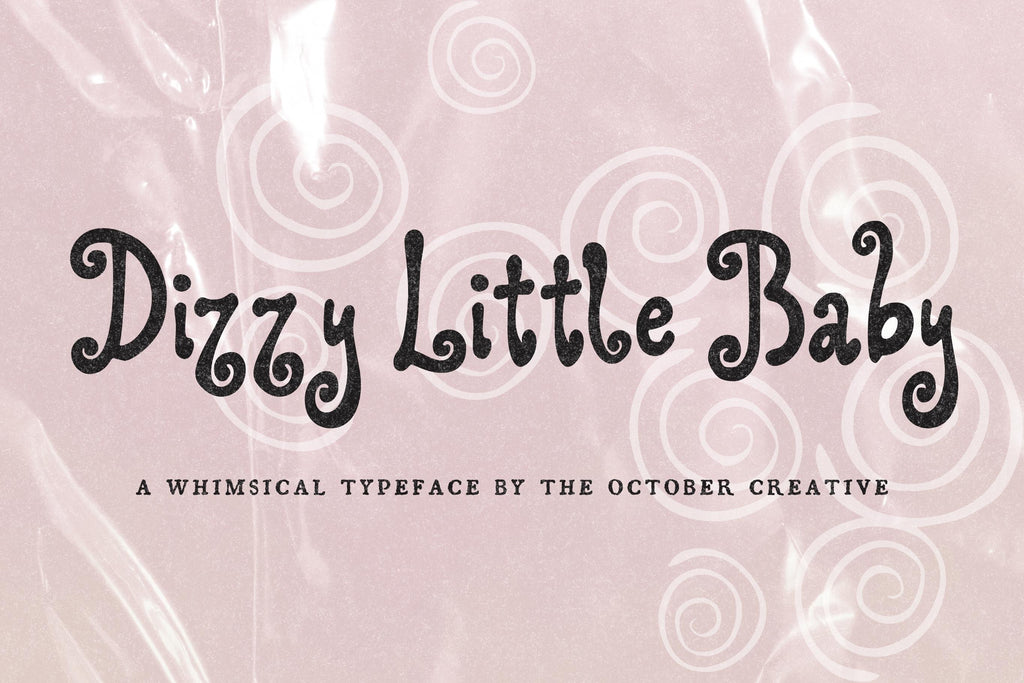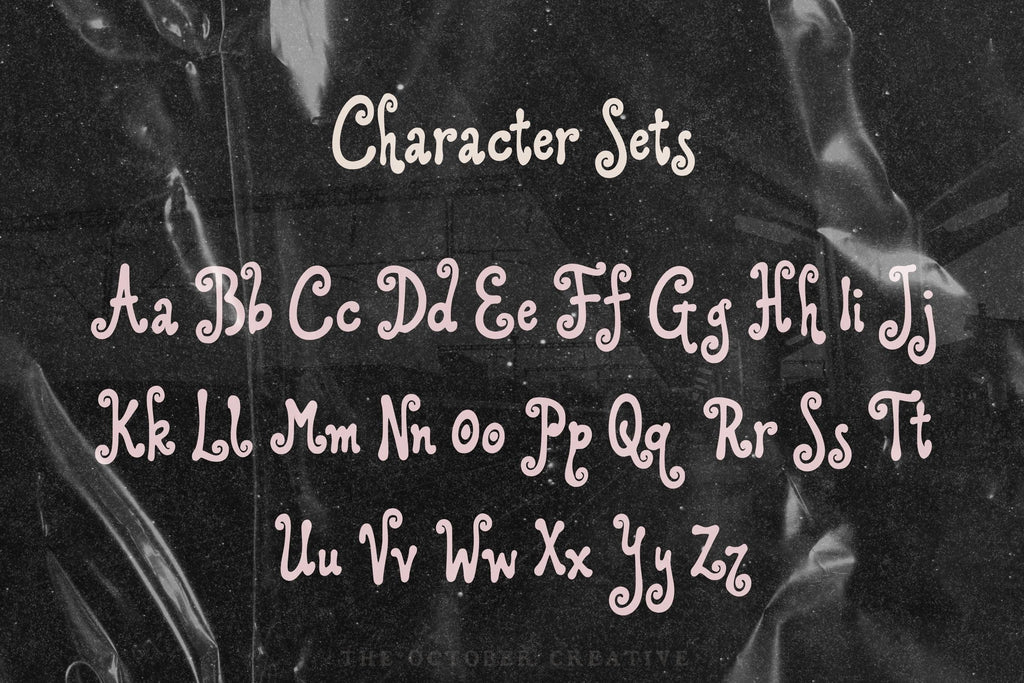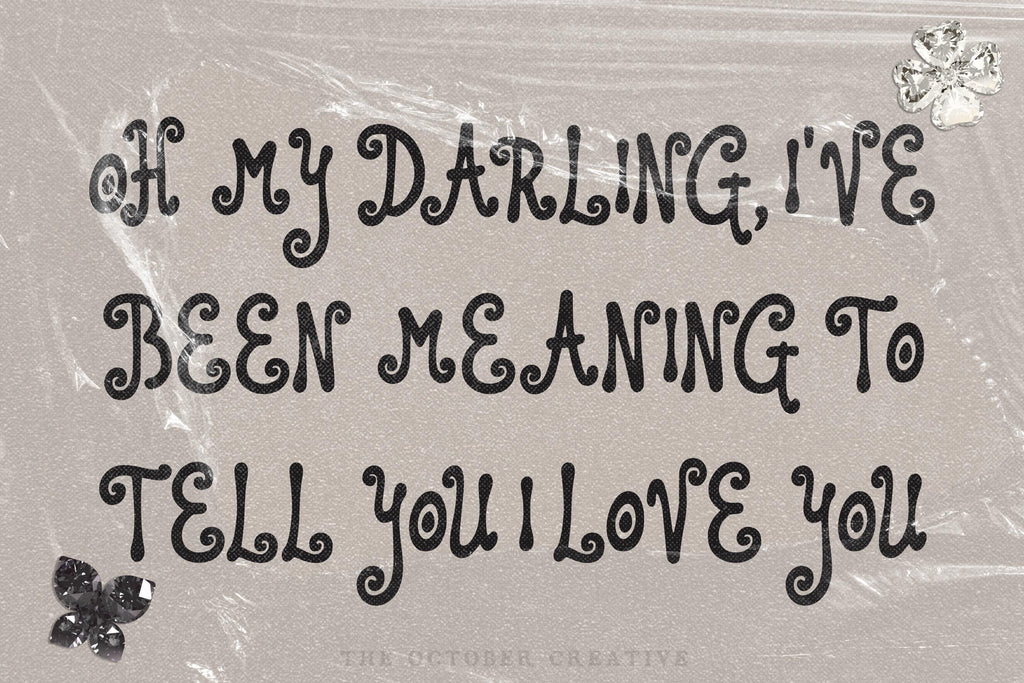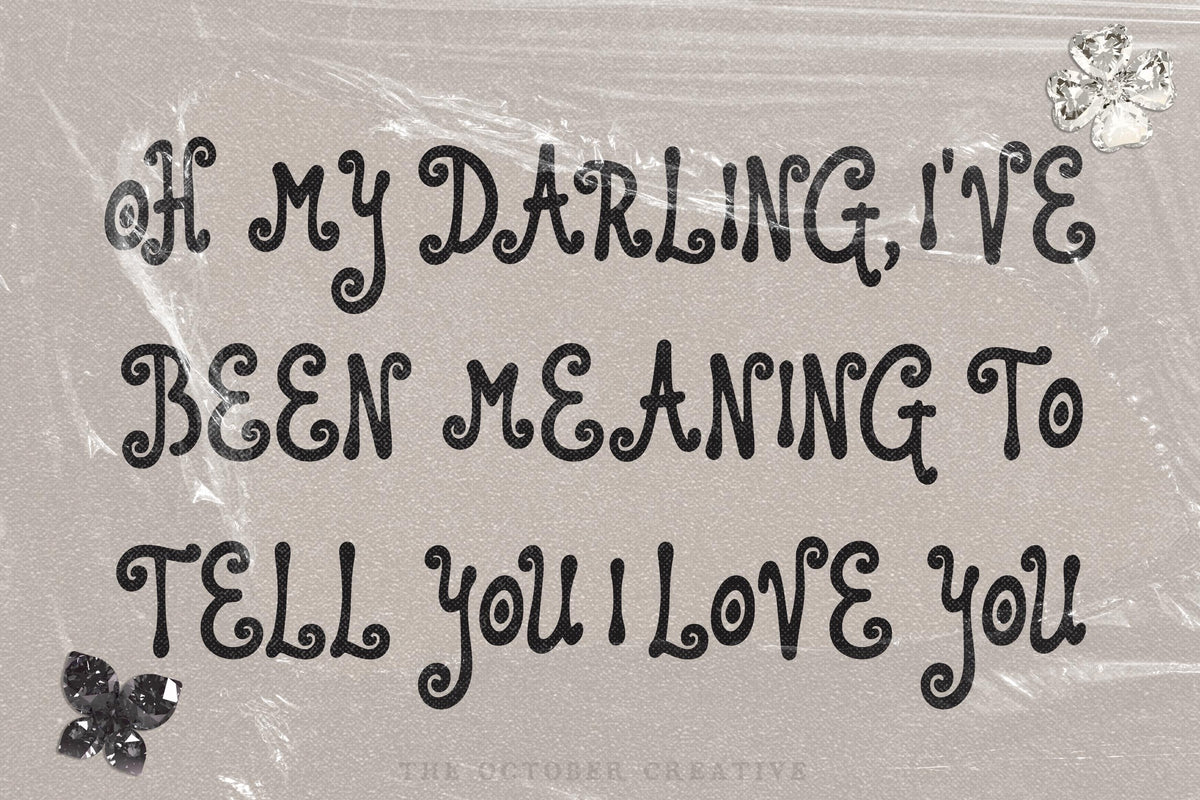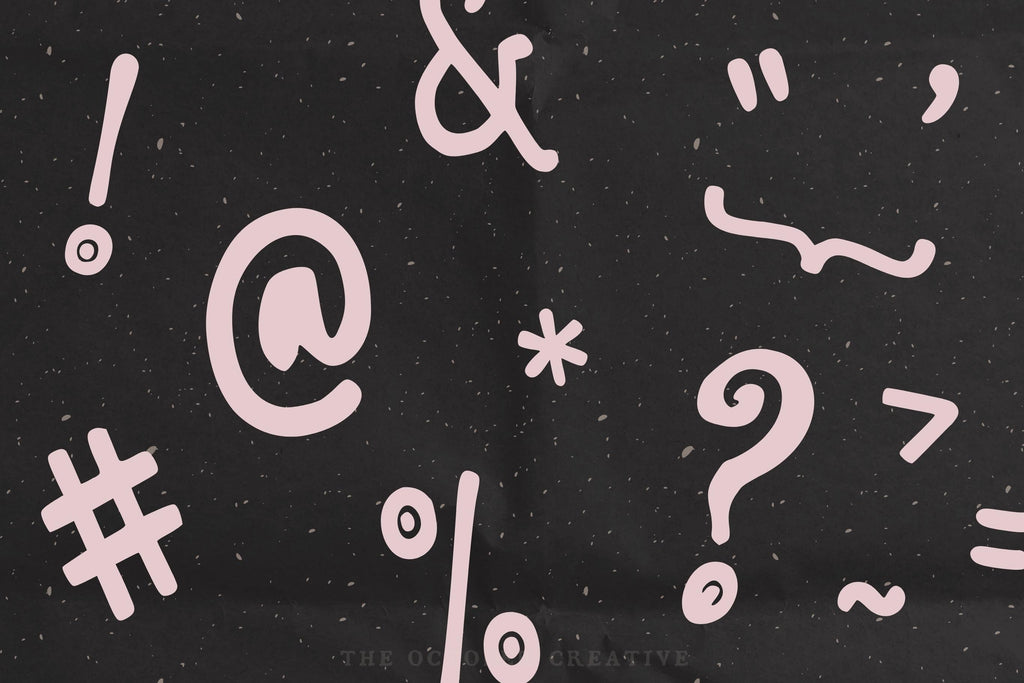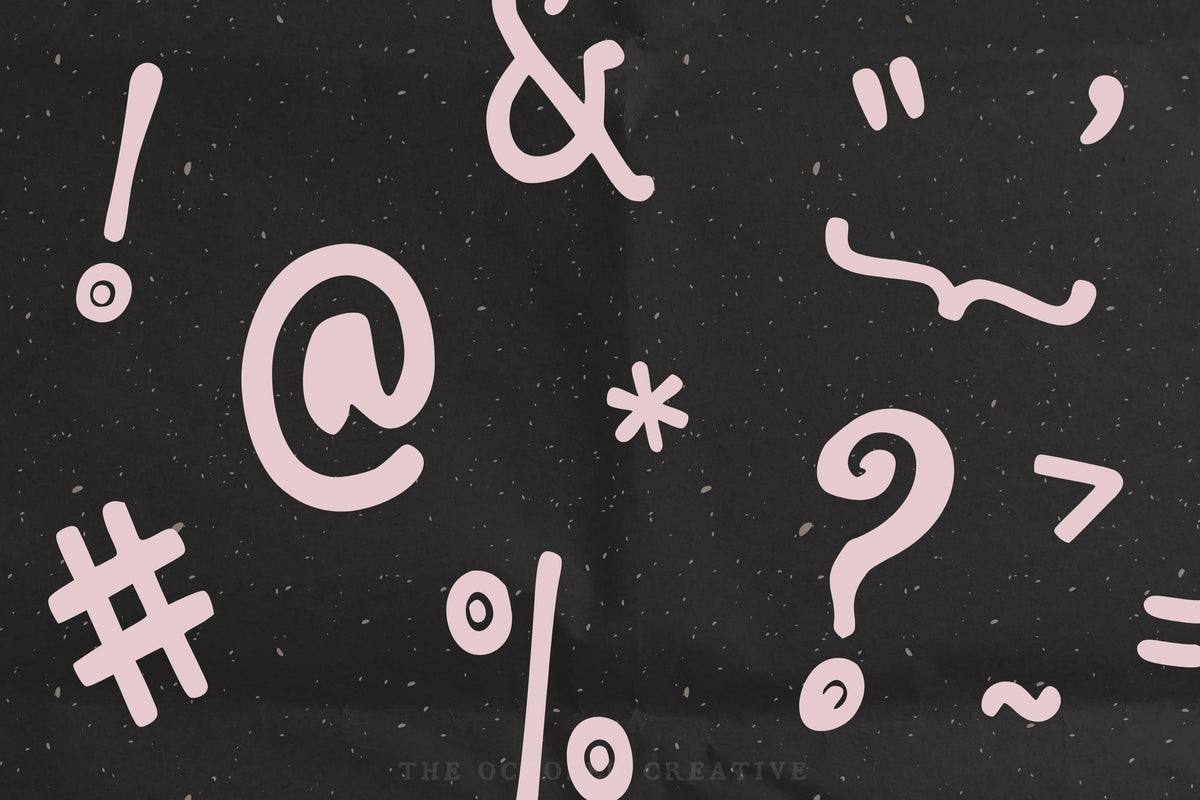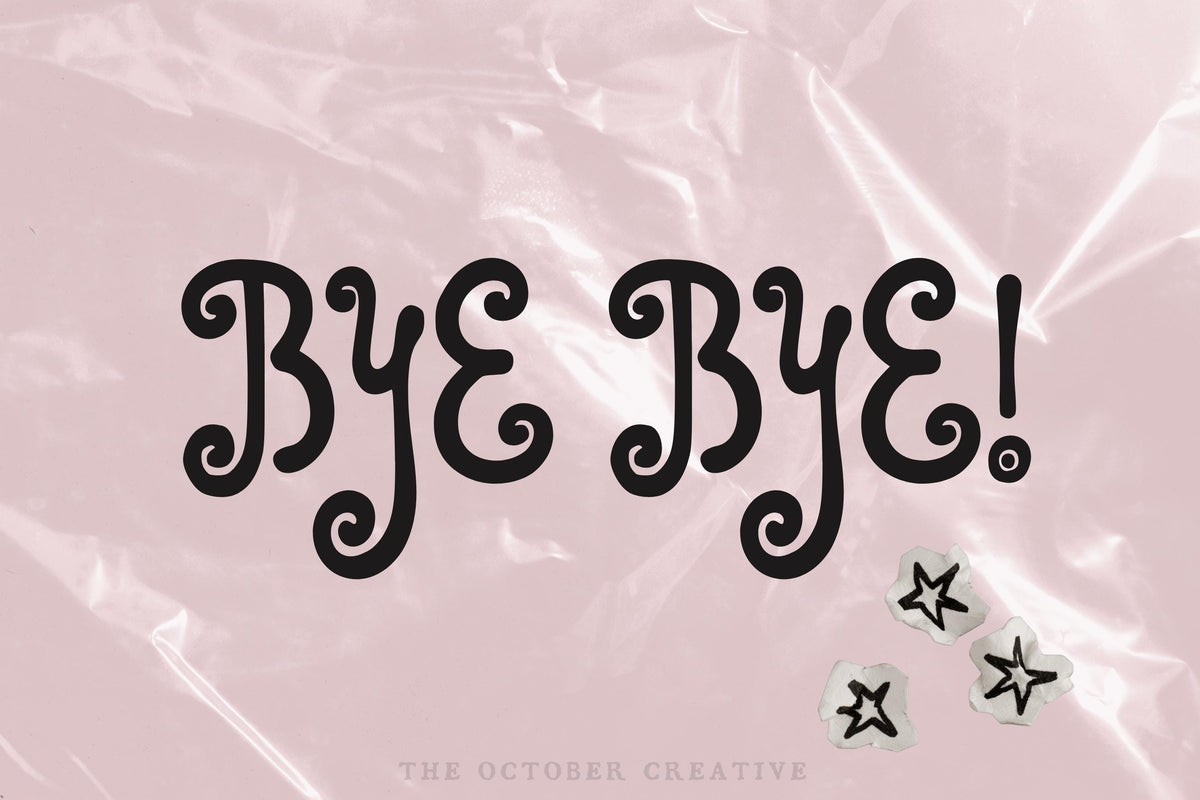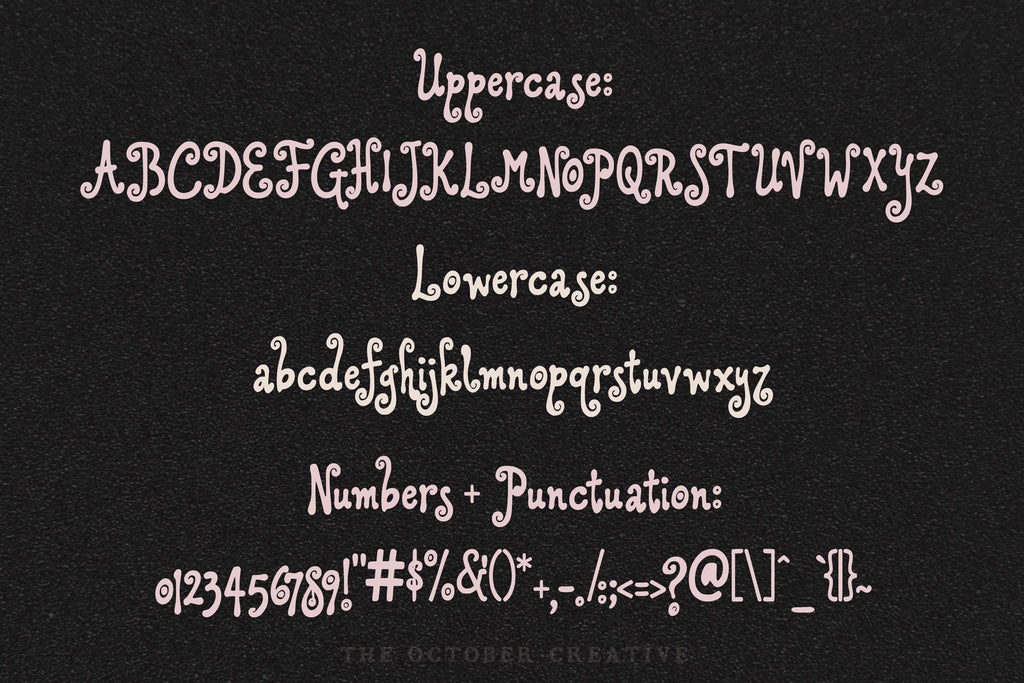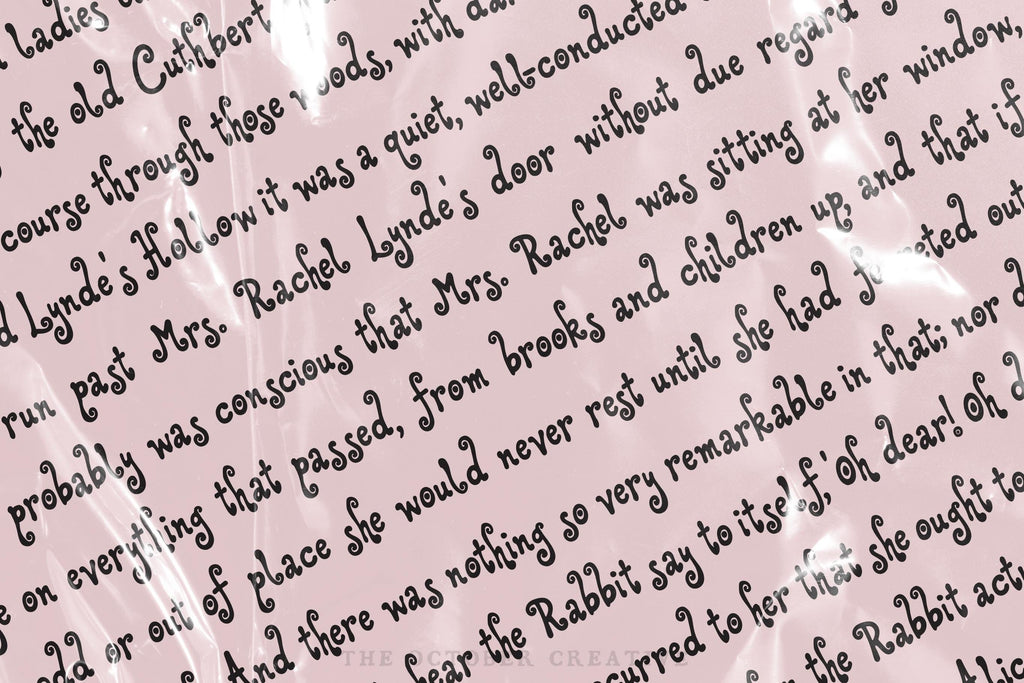
Dizzy Little Baby Font
Dizzy Little Baby is a bouncy, curly serif font with rounded letters and curled ends on the capitals and lowercase. It suits baby shower invitations, nursery prints, birthday cards, and candy labels.
Dizzy Little Baby